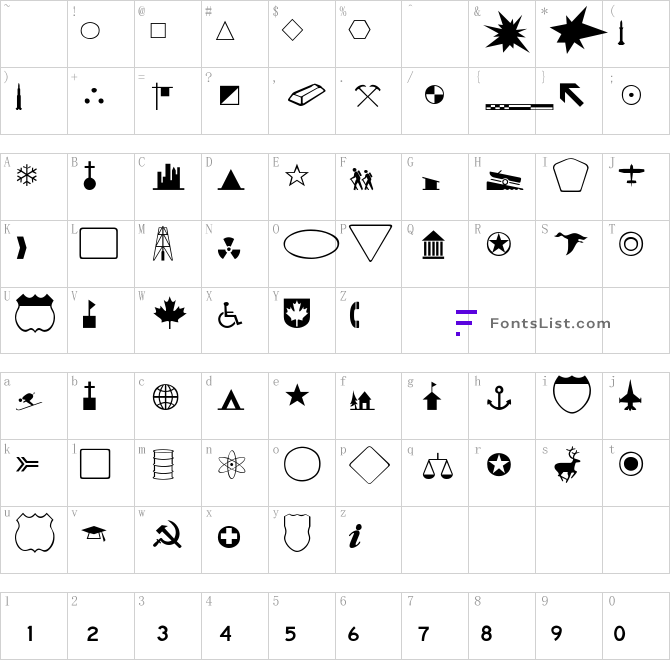
Banch-Thin.ttf is a very beautiful artistic font, Banch-Thin.ttf is widely used in the design and printing of various books and pictures,Banch-Thin.ttf has a strong visual impact,Banch-Thin.ttf is a commonly used font in newspapers, magazines and books, and is used in posters, e-commerce Poster design, store design, logo design, font design and other fields.Banch-Thin.